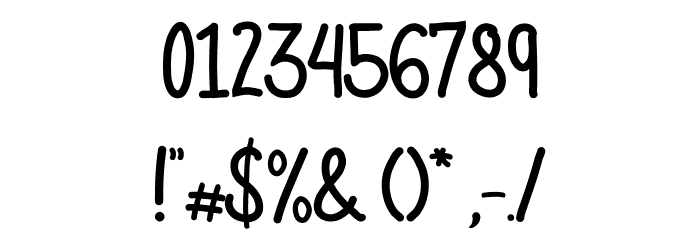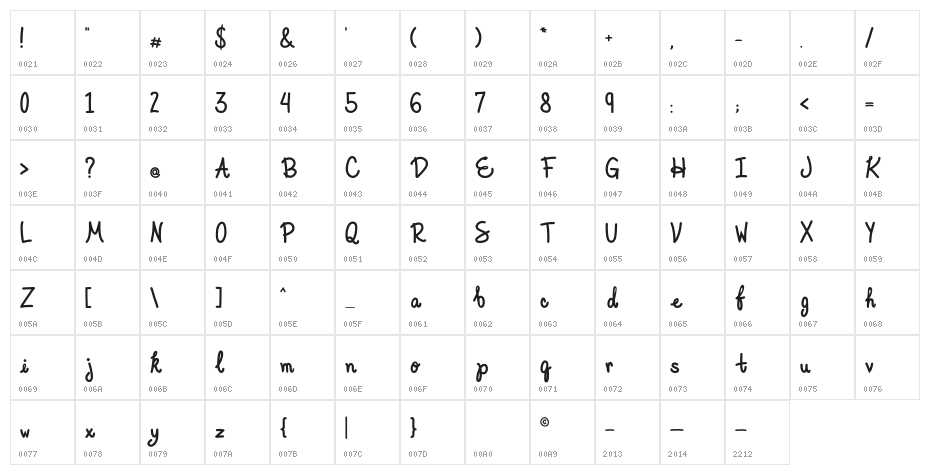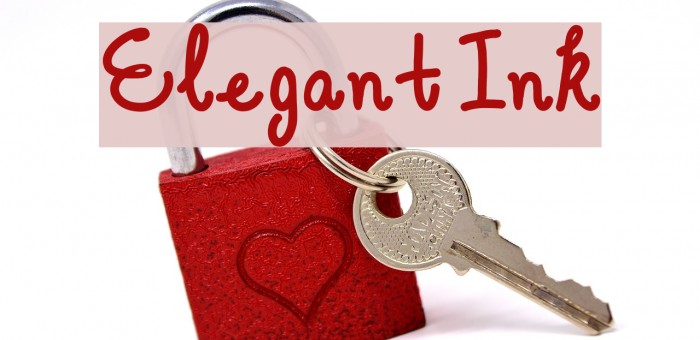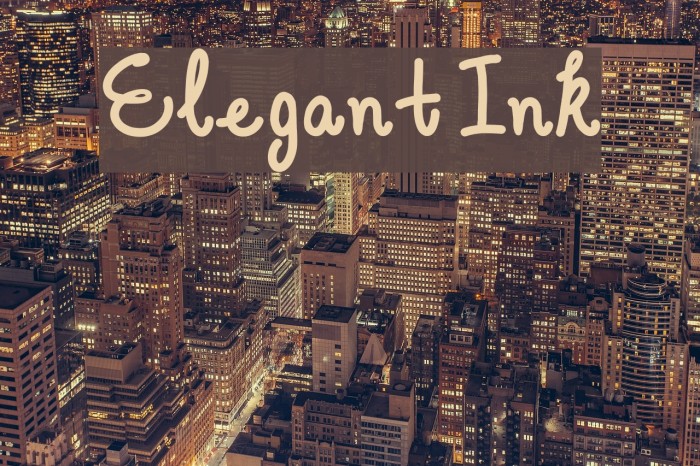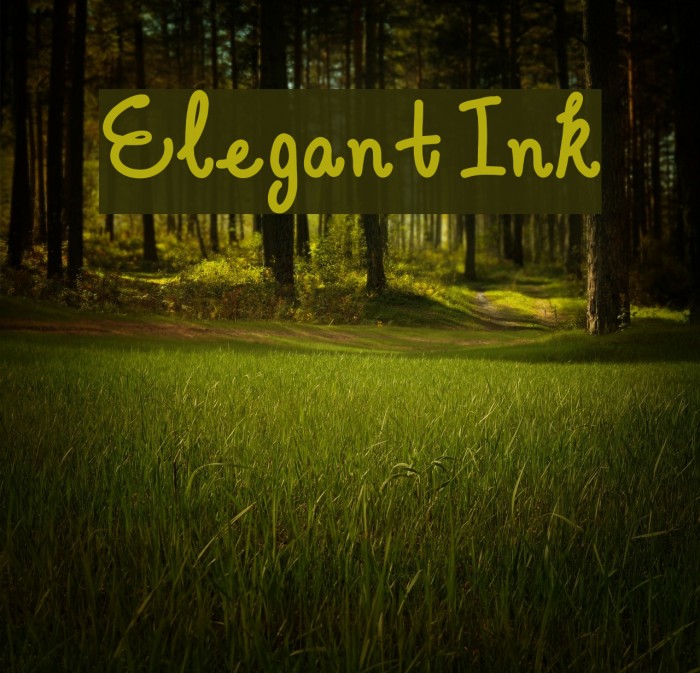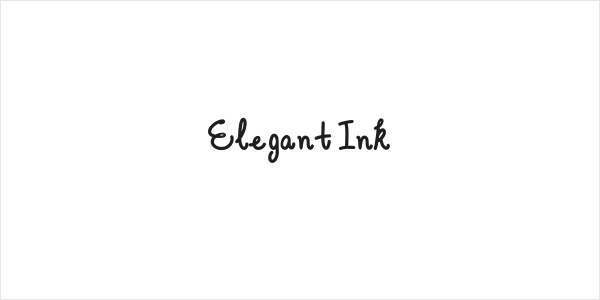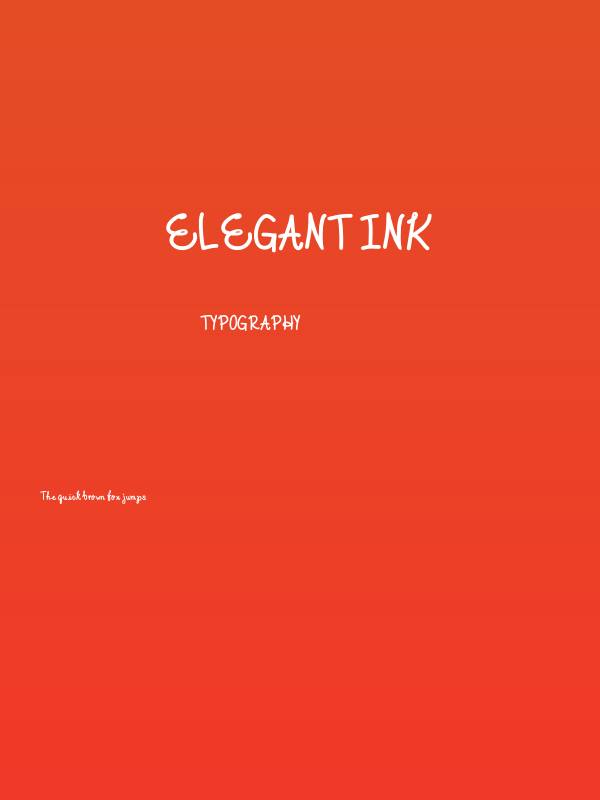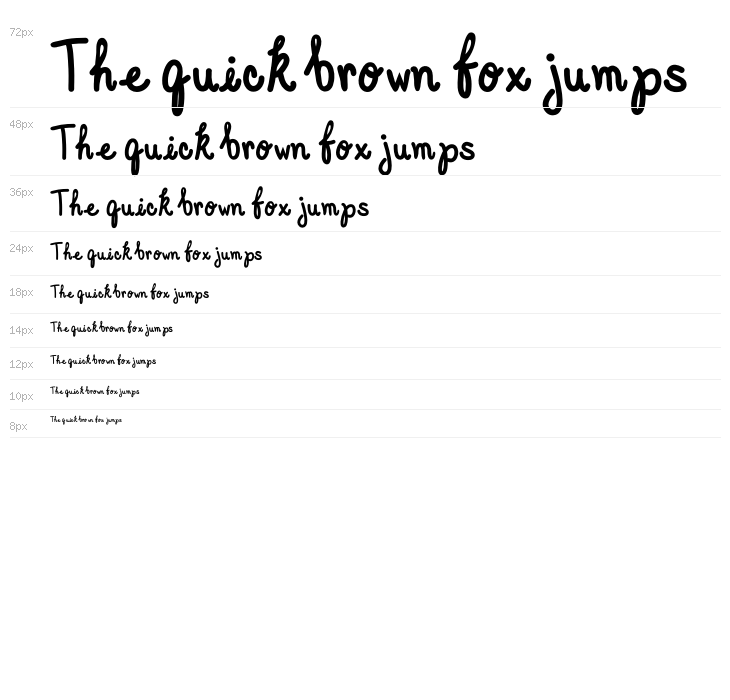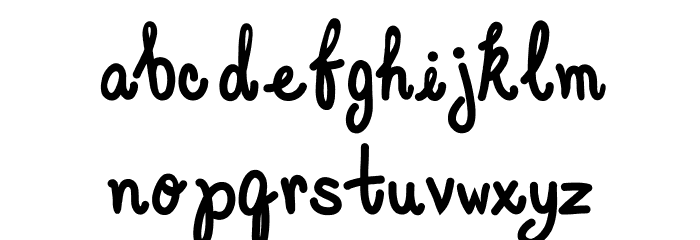
Elegant Ink Font
Elegant Ink Description
This font exudes a playful and artistic charm, characterized by its handwritten style that mimics the fluidity of ink on paper. The uppercase letters are bold and slightly irregular, giving them a whimsical yet sophisticated appearance. The lowercase letters maintain a consistent flow, with some characters featuring unique loops and curves that add to the overall personality. Numbers are clear and legible, matching the playful style of the alphabet. Special characters are creatively designed, maintaining the font's cohesive look. This font is perfect for projects that require a personal touch, such as invitations, greeting cards, or creative branding.